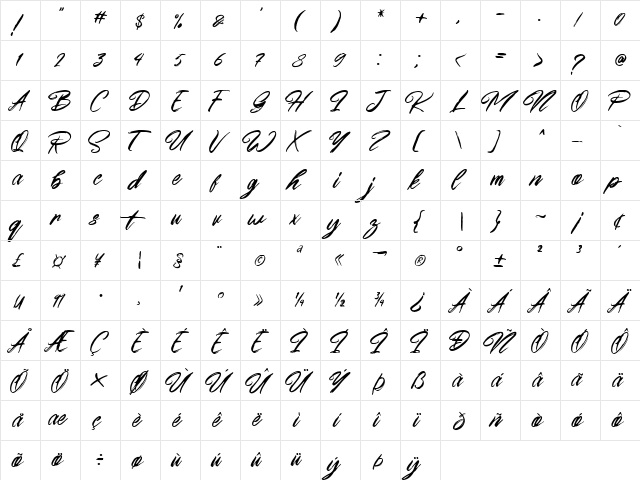
Young Blood Solid Free Regular
Design Context for Young Blood Solid Free Typeface
Young Blood Solid Free carries an unsettling edge — its distorted letterforms are built to unsettle, perfectly suited to horror, Halloween, and dark creative work.
Ideal for Halloween projects, horror film titles, haunted house signage, and dark editorial design.
Font Pairing: Pair with a clean neutral sans-serif for body copy to let Young Blood Solid Free's character lead without overwhelming the composition.
Pro Tip: Young Blood Solid Free works best as a headline or focal element. Pair it against plain, neutral body text to amplify the contrast.